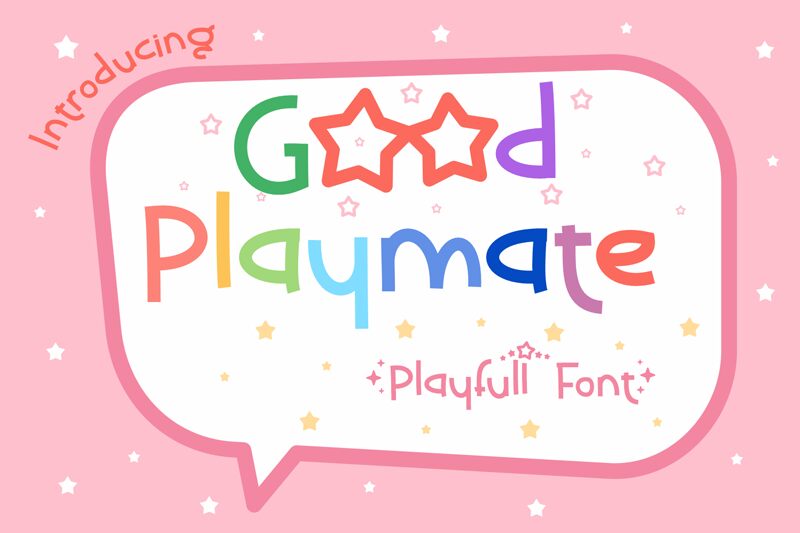
Good Playmate DEMO
Good Playmate font by Nuryanto Dwi is a whimsical and quirky cartoon font that brings a playful mood to the table. It’s a casual free display font with a creative and fun structure where each character appears visually light with rounded corners.
This daring font is an apparent choice in funky posters, apparel designs, branding, headlines, invitations for kids’ events, video game interfaces, menus for restaurants and bars, signage typography, products’ packages…